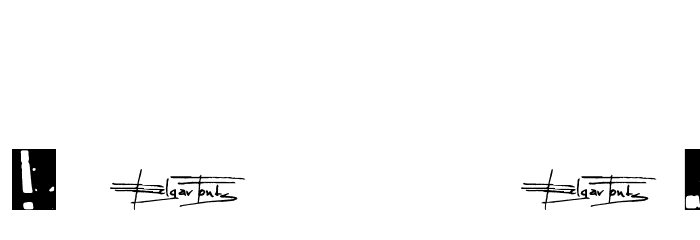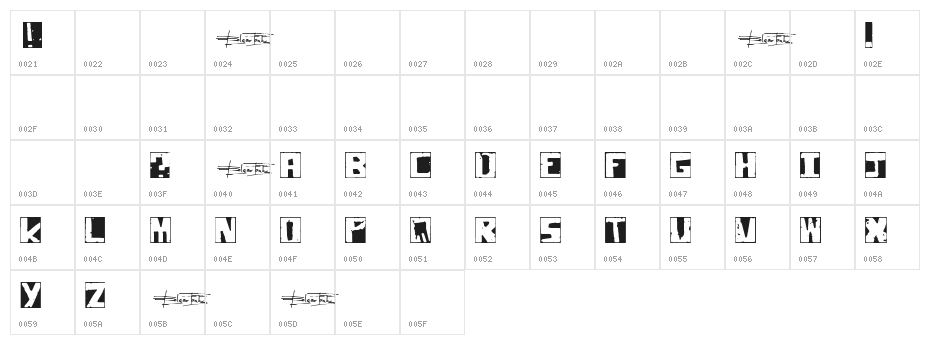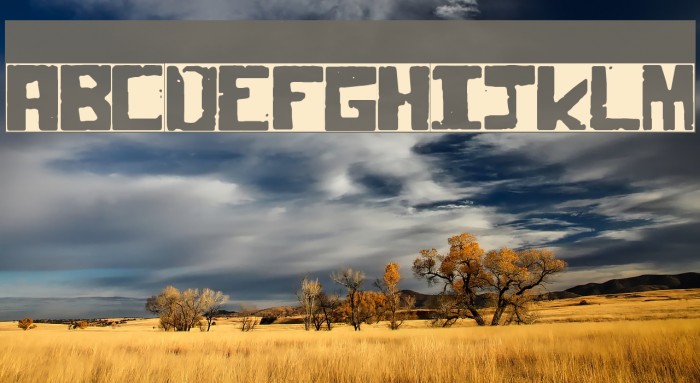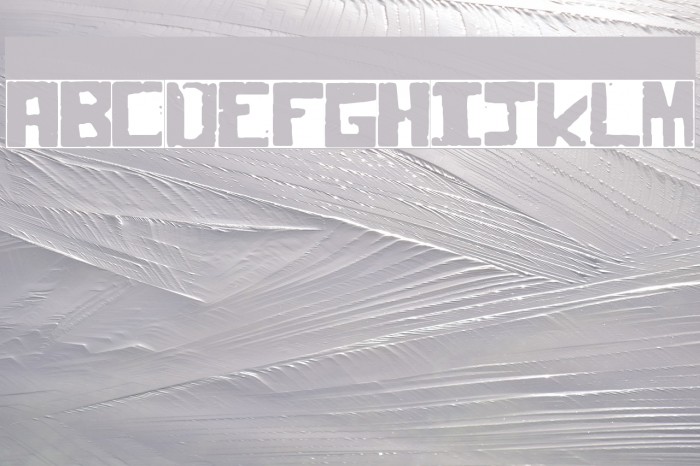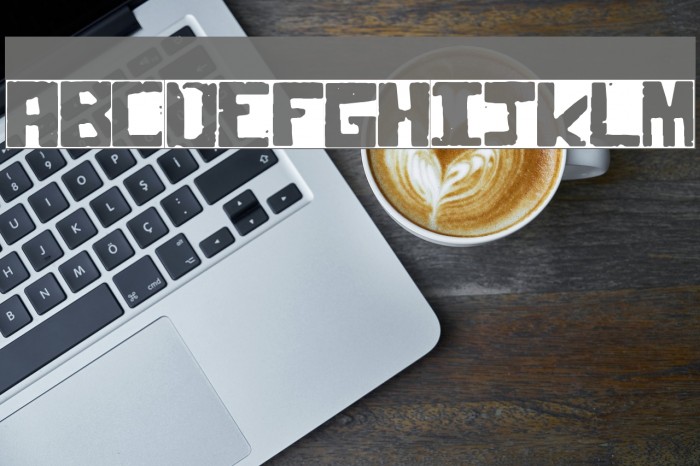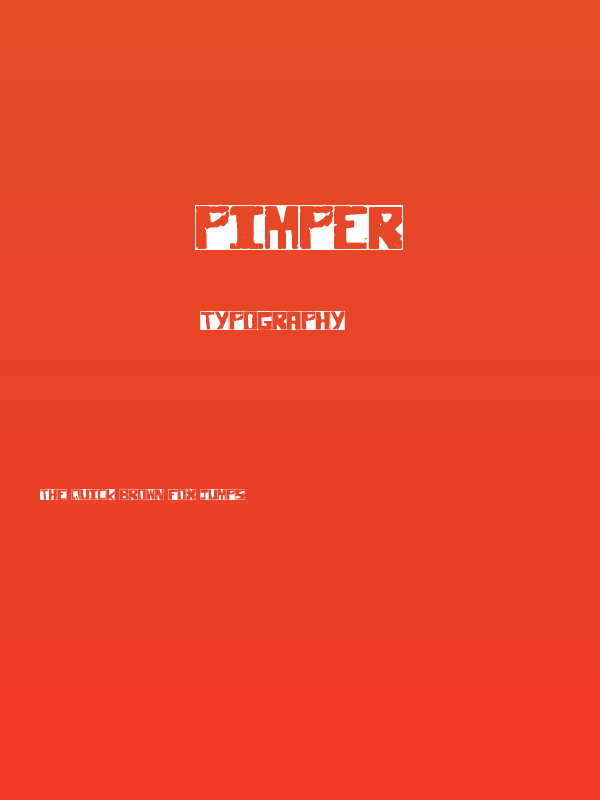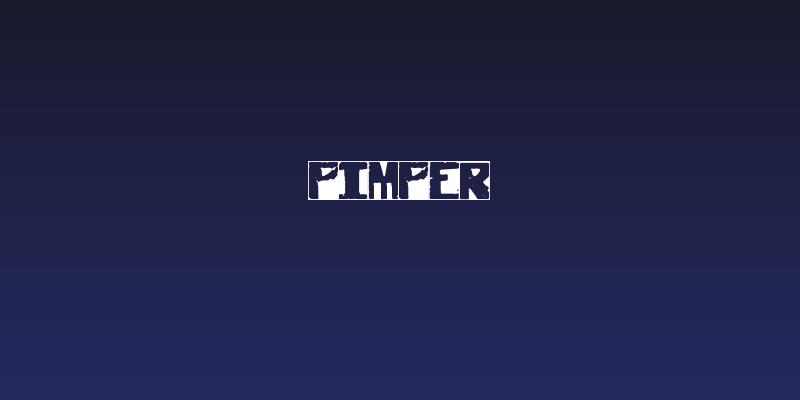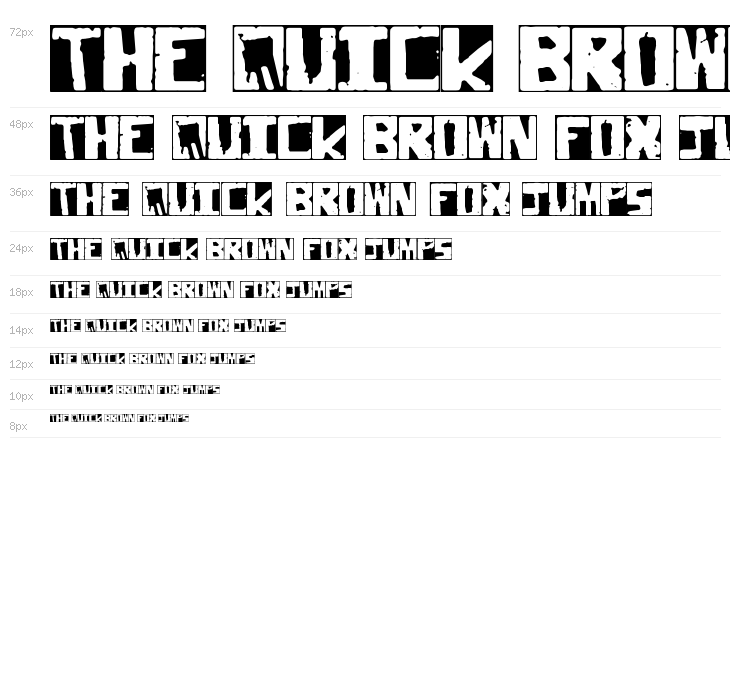
pimper Font
pimper Description
This font features a bold and distressed style, characterized by its rough, textured appearance. The letters are blocky and have a grunge aesthetic, with uneven edges and a worn-out look. This gives the font a rugged and rebellious feel, making it suitable for designs that require a strong, impactful presence. The uppercase letters are consistent in height, while the overall design maintains a uniform width, contributing to its bold and assertive nature. The distressed texture adds a layer of depth and interest, making it stand out in any design context.
| Overall Style | Grunge, Rugged, Rebellious |
| Proposed Projects | Ideal for album covers, posters, streetwear branding, and edgy graphic designs. |